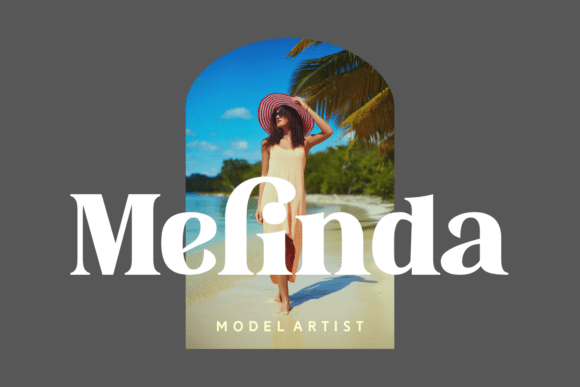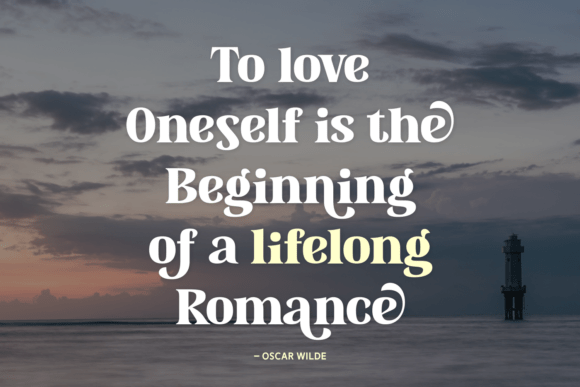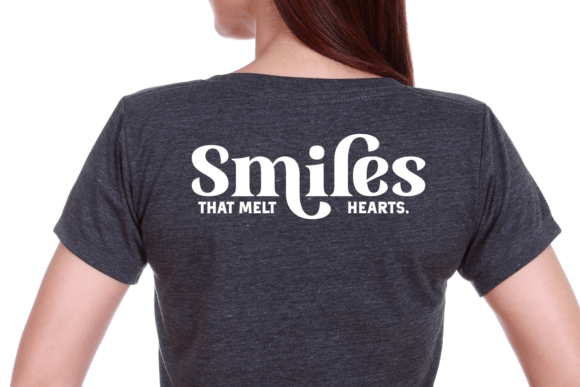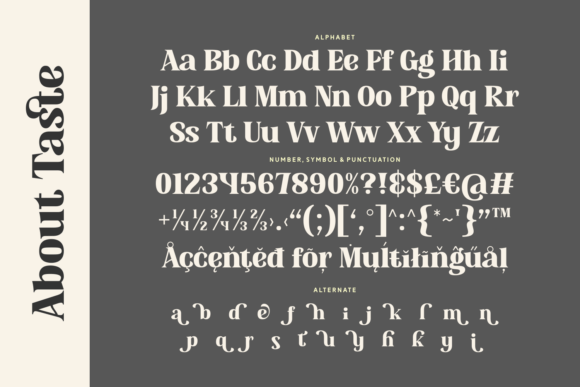
The Moment of Truth: Finding the Perfect Font
I still remember the frustration of working on a high-end fashion project, searching for a font that exuded luxury and sophistication. My client wanted a typeface that would make their brand stand out, but I was struggling to find something that fit the bill. That was until I stumbled upon About Taste, a bold and elegant modern serif font that changed the game. In this article, I’ll share my experience with About Taste, its features, and how to make the most of it in your designs.
About Taste: A Luxurious Typeface
About Taste is a stunning modern serif font that seamlessly blends classic sophistication with a contemporary twist. Its high contrast strokes, dramatic curves, and uniquely stylized ligatures make it a commanding presence on any design. Whether you’re working on branding, editorial design, packaging, or high-end fashion visuals, About Taste brings a luxurious, artistic flair to any project.
Here’s what I love about About Taste:
- ✨ Elegant and sophisticated: About Taste exudes luxury and refinement, making it perfect for high-end designs.
- ✅ High contrast strokes: The font’s dramatic contrast between thick and thin strokes adds visual interest and depth.
- ✅ Uniquely stylized ligatures: The font’s ligatures are carefully crafted to add an artistic touch to your designs.
- ✅ Refined readability: Despite its elegant appearance, About Taste remains highly readable, even at smaller font sizes.
And here are some minor quirks to consider:
- 🤔 Limited use in body text: While About Taste is highly readable, its elegant appearance may not be suitable for lengthy body text.
- ⚠️ Requires attention to kerning: As with any elegant font, kerning is crucial to ensure that About Taste looks its best.
The Designer Inspiration
About Taste was designed with the goal of creating a luxurious and elegant typeface that would meet the demands of high-end design. The designer, inspired by classic serif fonts, aimed to create a font that would blend sophistication with a contemporary twist. The result is a font that is both refined and attention-grabbing.
| What is About Taste? | About Taste is a bold and elegant modern serif font designed for high-end design projects. |
| Is About Taste suitable for body text? | While About Taste is highly readable, its elegant appearance may not be suitable for lengthy body text. It’s best used for headlines and titles. |